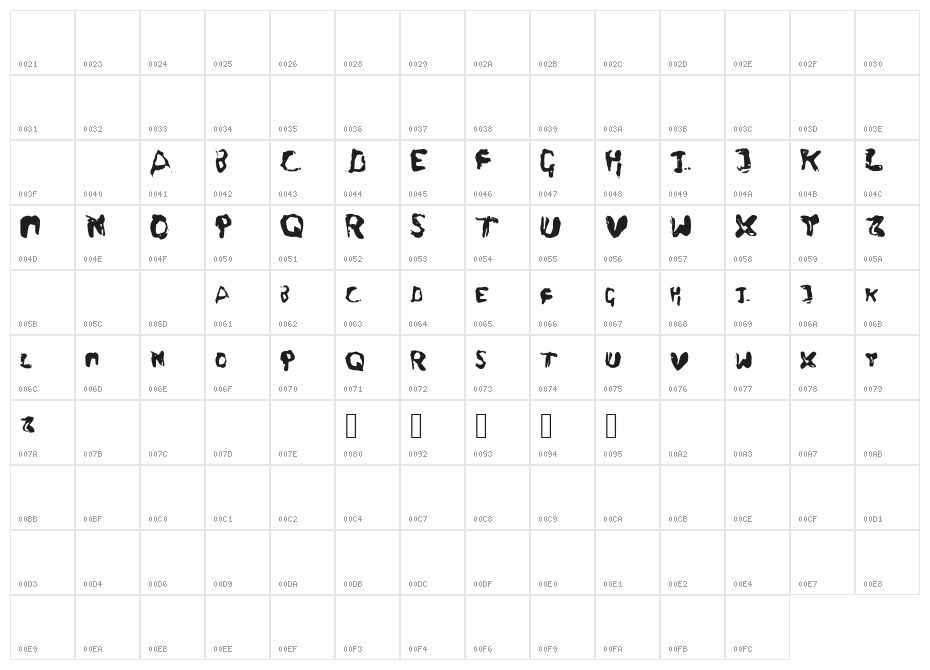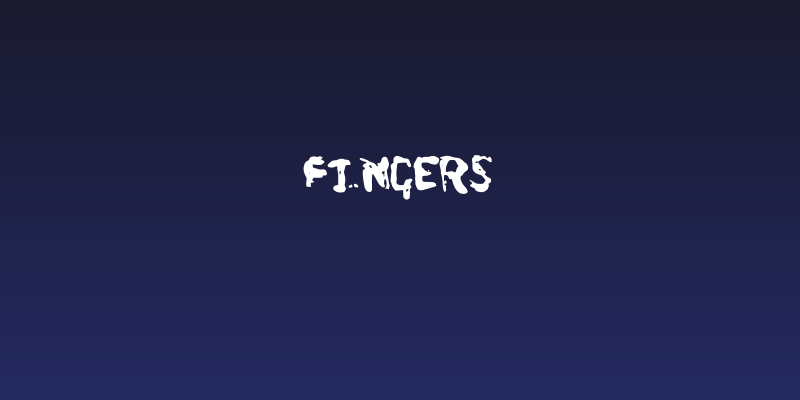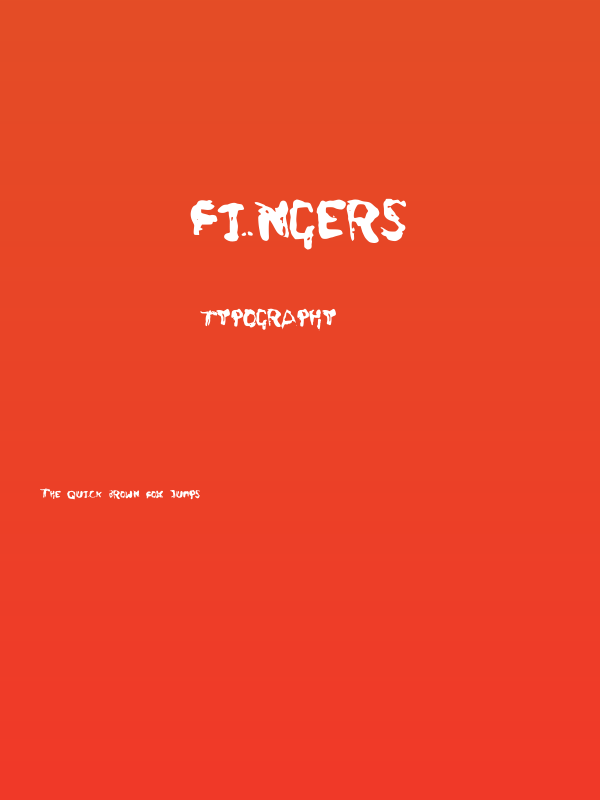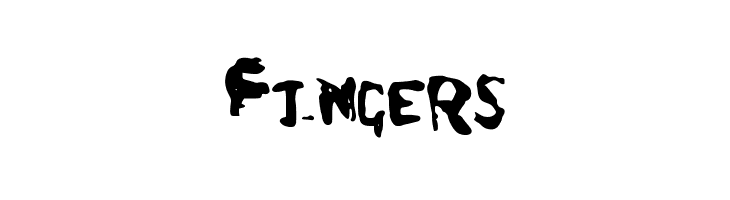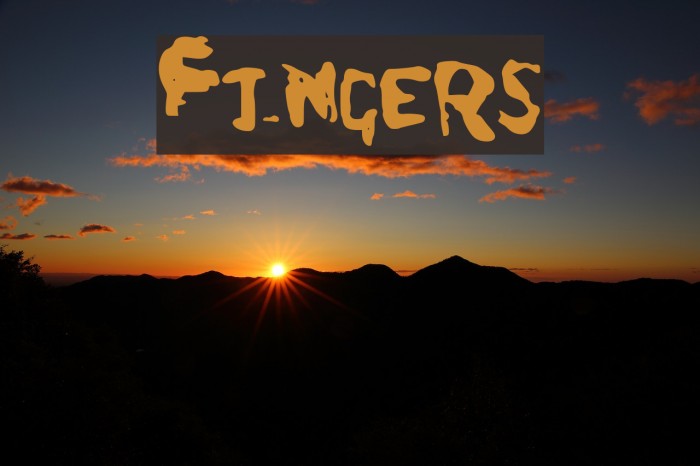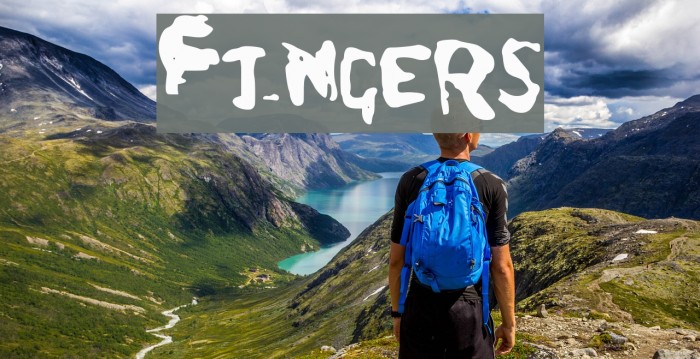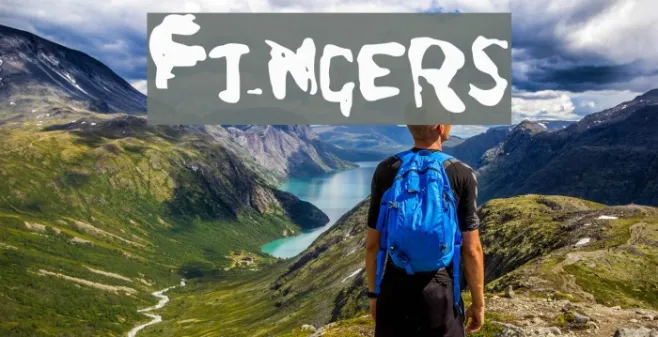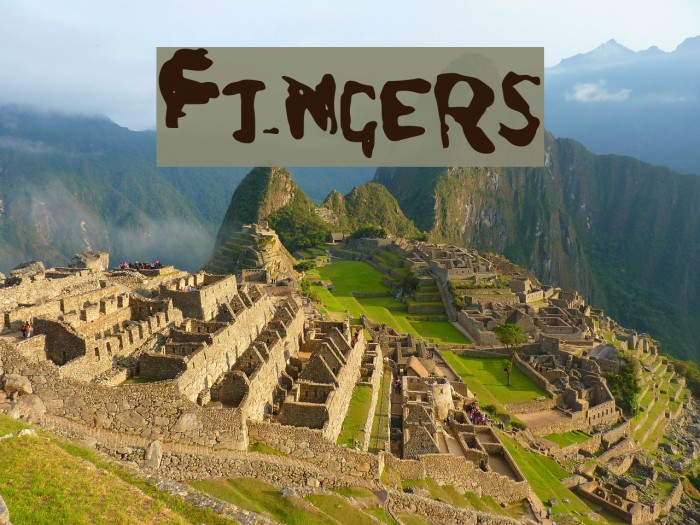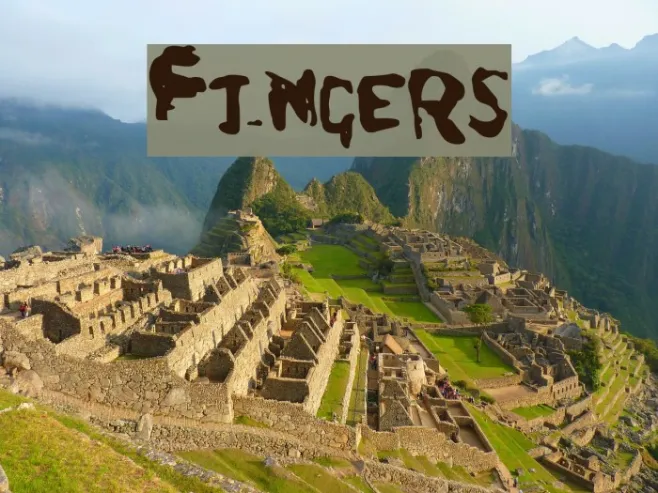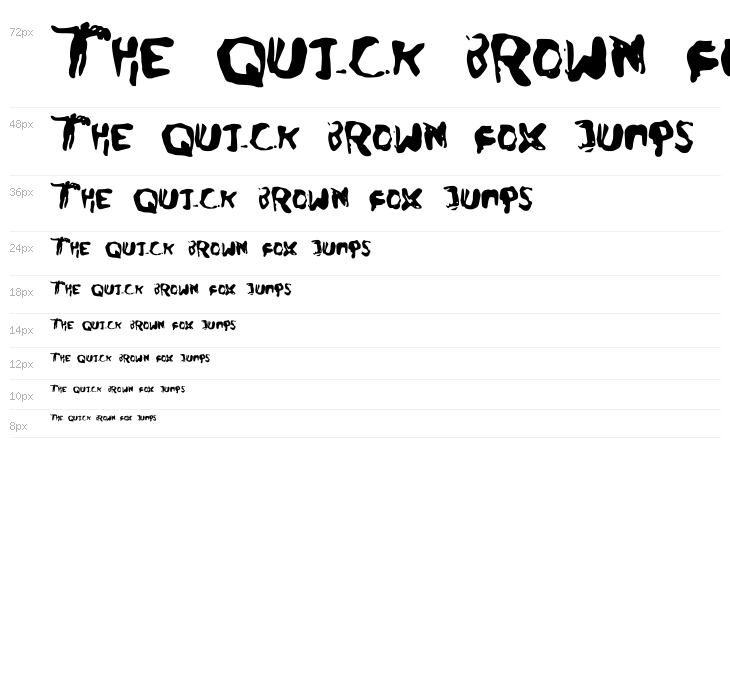
Fingers Font
Fingers Description
This font features a highly artistic and abstract design, reminiscent of brush strokes or ink splatters. Each character appears as if it has been painted with a bold, expressive style, giving it a unique and dynamic appearance. The irregular edges and varying thickness of the strokes contribute to a sense of movement and energy. This font is ideal for creative projects that require a distinctive and eye-catching typeface. Its unconventional style makes it suitable for artistic endeavors, posters, and any design work that seeks to stand out with a bold statement.
| Use Case | Headlines, Logos, Artistic projects |
| Proposed Projects | Ideal for artistic projects, posters, album covers, and creative branding. |